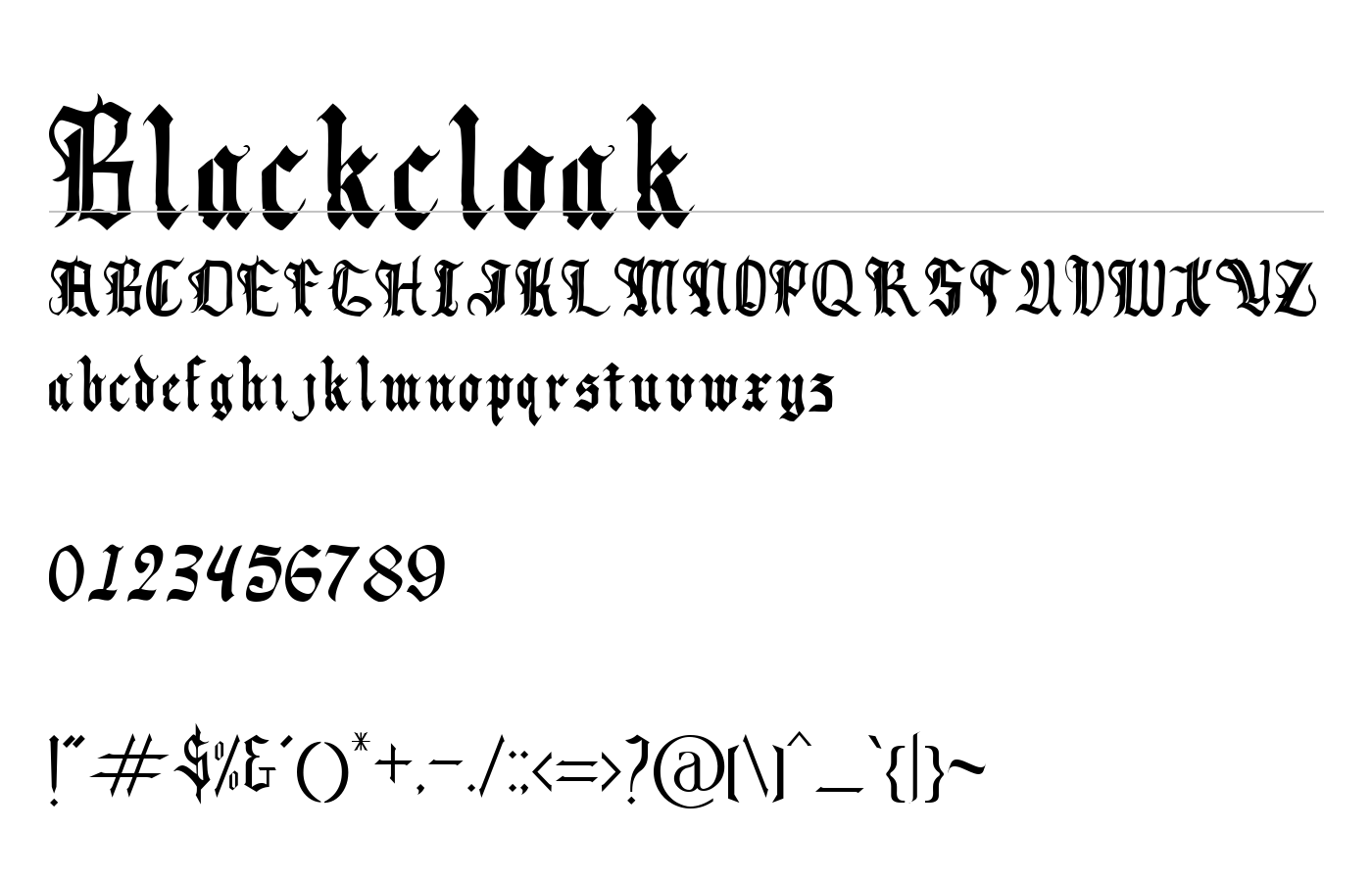
Blackcloak is a dramatic blackletter serif font featuring strong, angular strokes and high contrast between thick and thin lines, giving it a bold and historic feel. Its ornate, sharp letterforms and condensed proportions make it perfect for creating a gothic, vintage atmosphere in logos, headlines, or decorative designs where a striking, old-world character is desired.
Blackcloak Font
About Blackcloak Font
| Font family | Blackcloak Font |